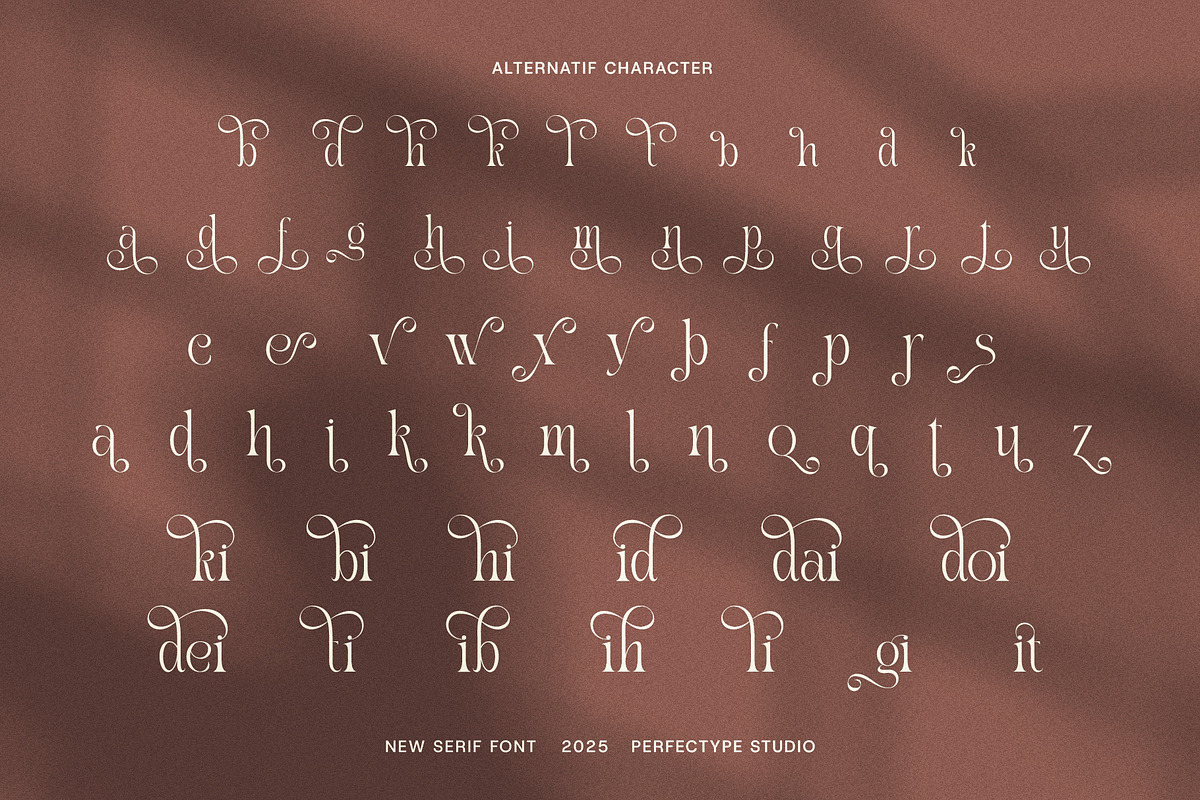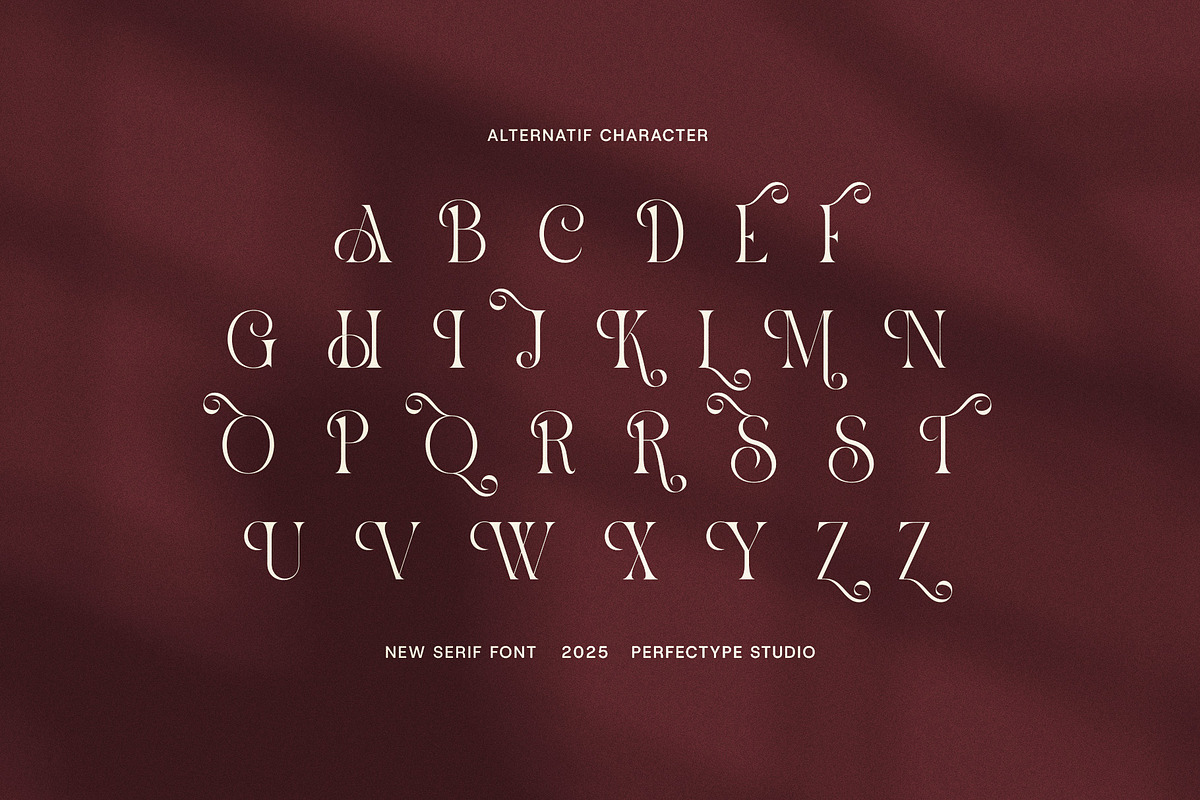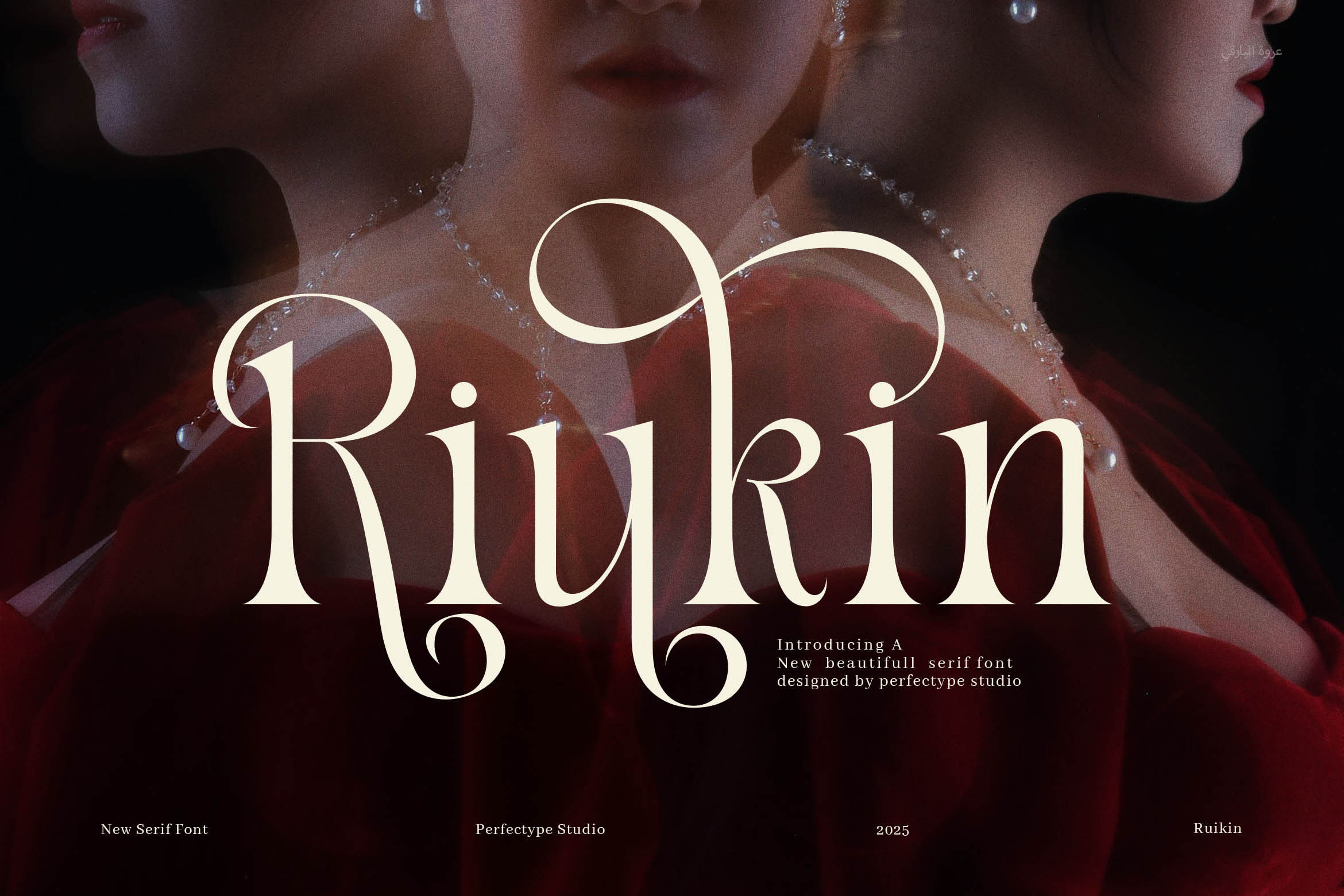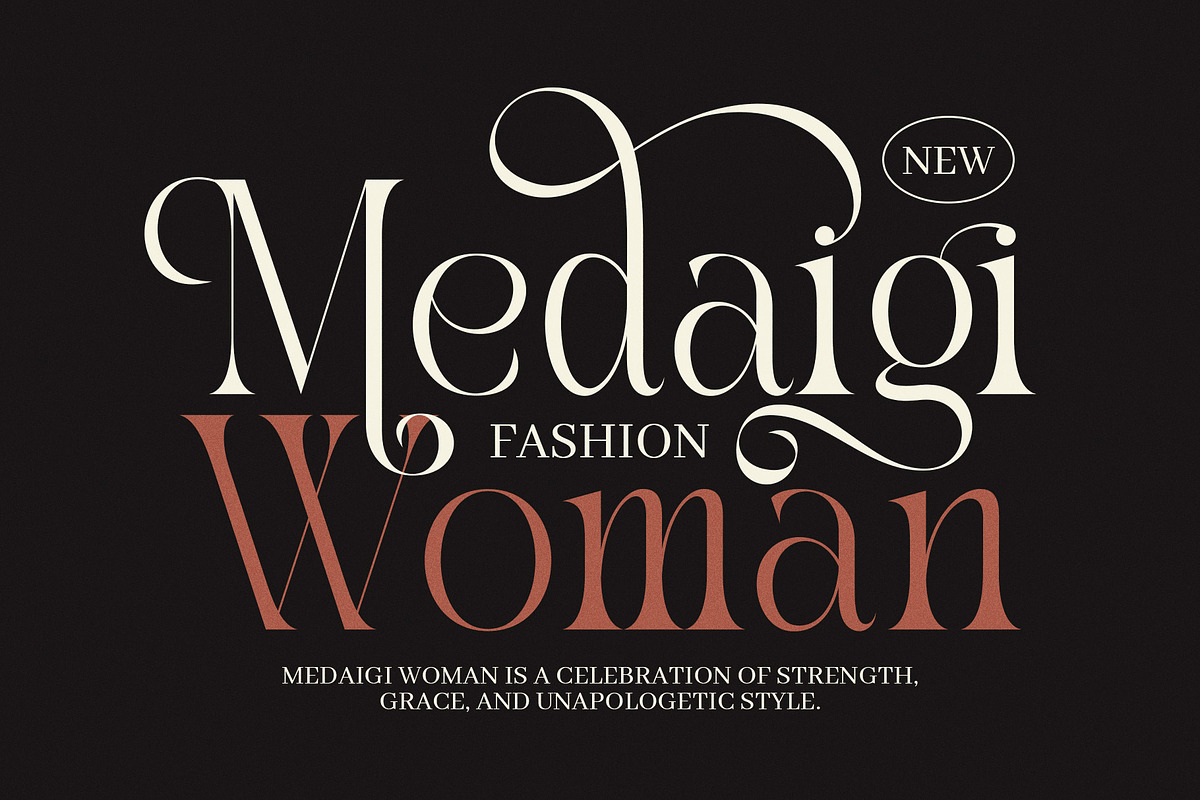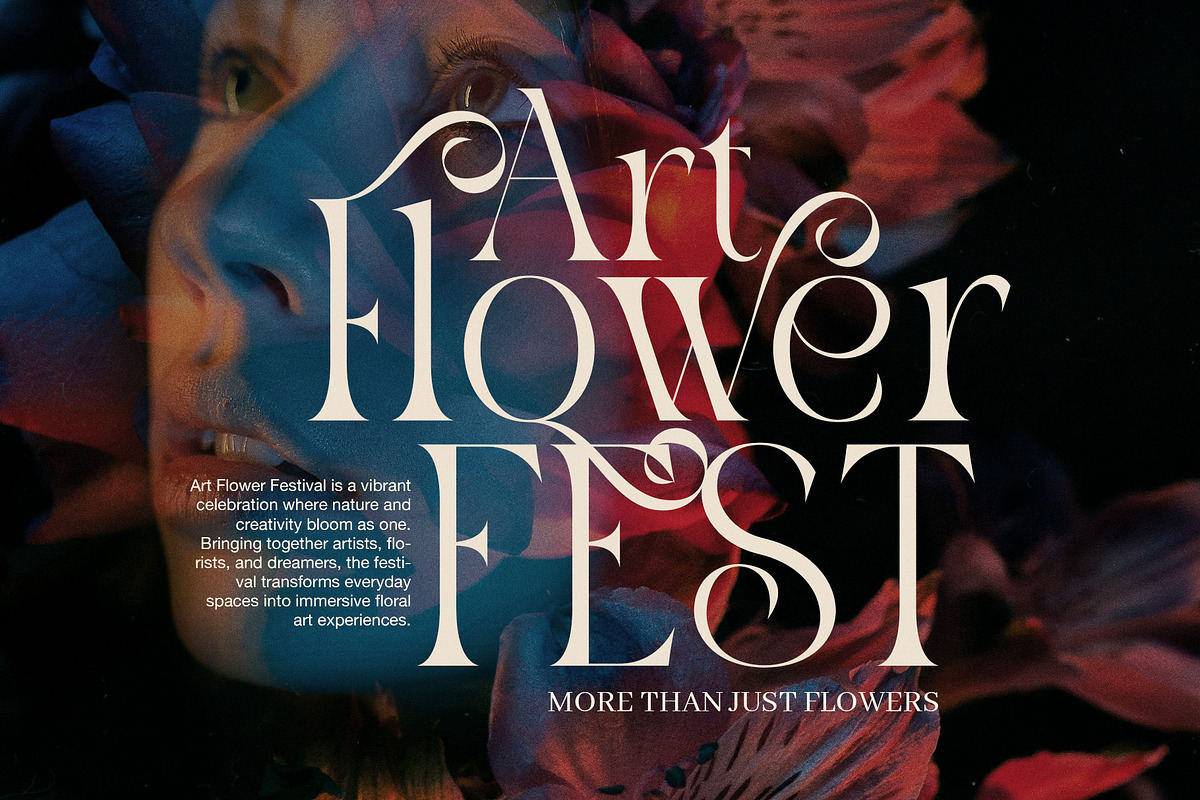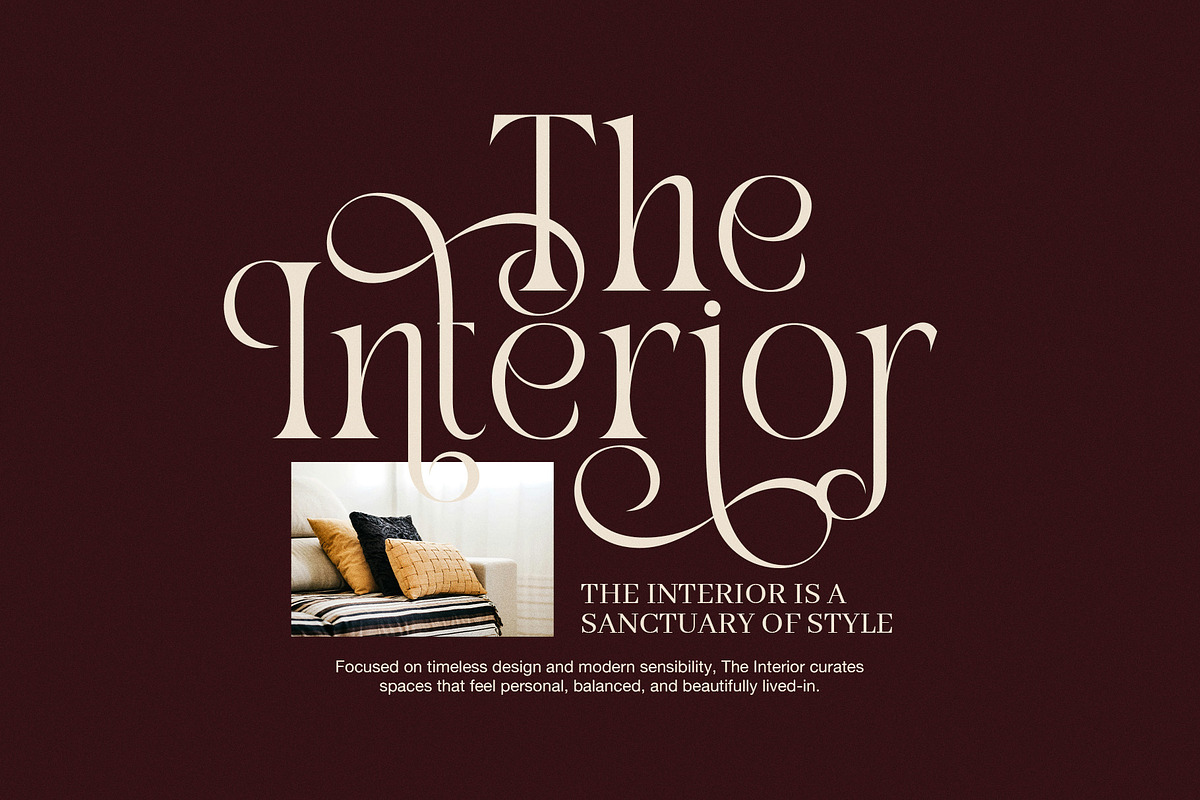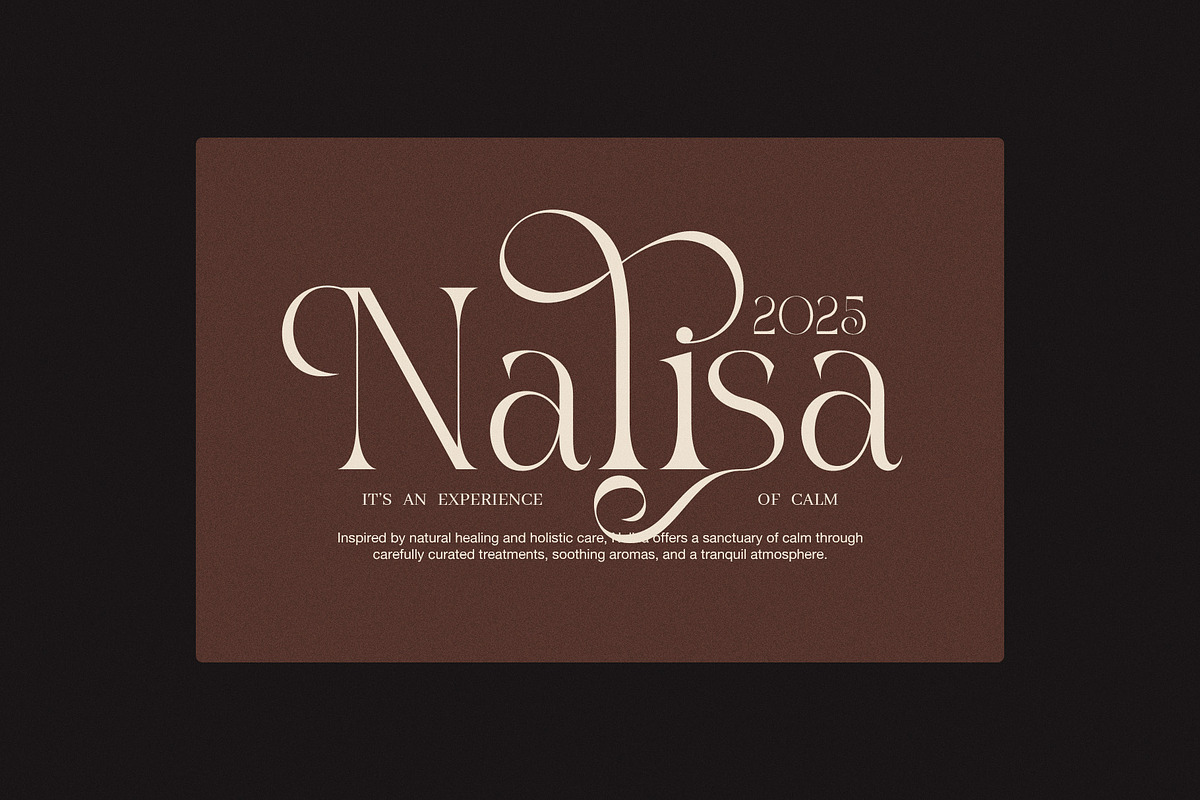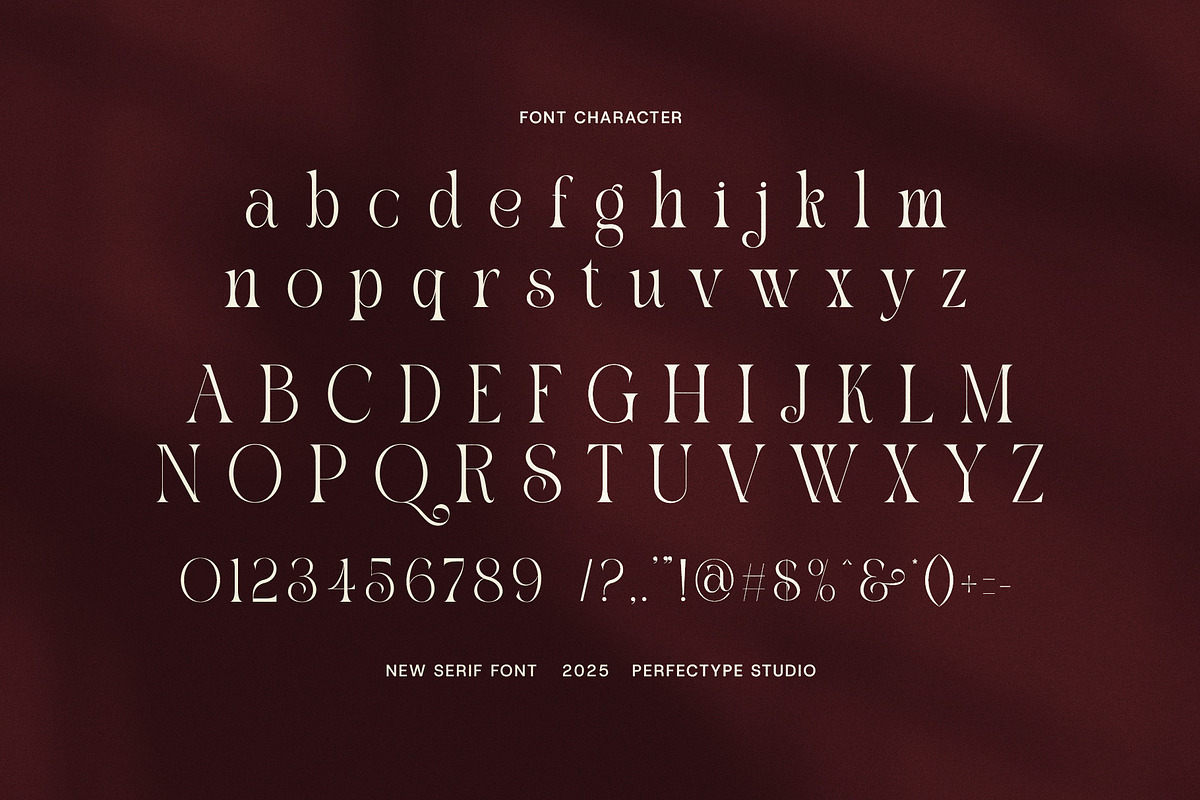
Riukin Elegant Serif Font
Riukin is an elegant serif font that brings together classic charm and modern style. Because of this, it works well for many creative projects. Whether you are designing branding, editorial layouts, wedding invitations, or packaging, Riukin adds a polished and professional look. In addition, it balances sophistication with readability, making your designs stand out.
This font features clean lines and smooth curves. Therefore, it creates a strong and clear presence without being too bold. Moreover, Riukin is versatile enough to be used in large headlines as well as smaller body text. Also, it includes special ligatures and alternate styles that add extra flair to your typography.
One of the main reasons to choose Riukin is its mix of vintage charm and modern clarity. For example, it fits perfectly with fashion magazines, luxury brands, wedding stationery, and corporate identities. As a result, your project will have a sophisticated and trustworthy feel.
Here are some highlights of Riukin font:
Classic serif style with modern details
Highly readable and versatile for many uses
Perfect for branding, editorial, packaging, and more
Includes ligatures and stylistic alternates
Works well in both digital and print formats
By using Riukin, your text will stand out with grace and impact. It offers a professional and stylish look while staying friendly and easy to read. Plus, adding Riukin to your creative toolkit will help you achieve refined and memorable typography without extra effort.